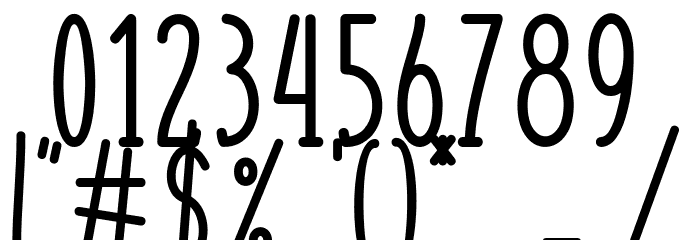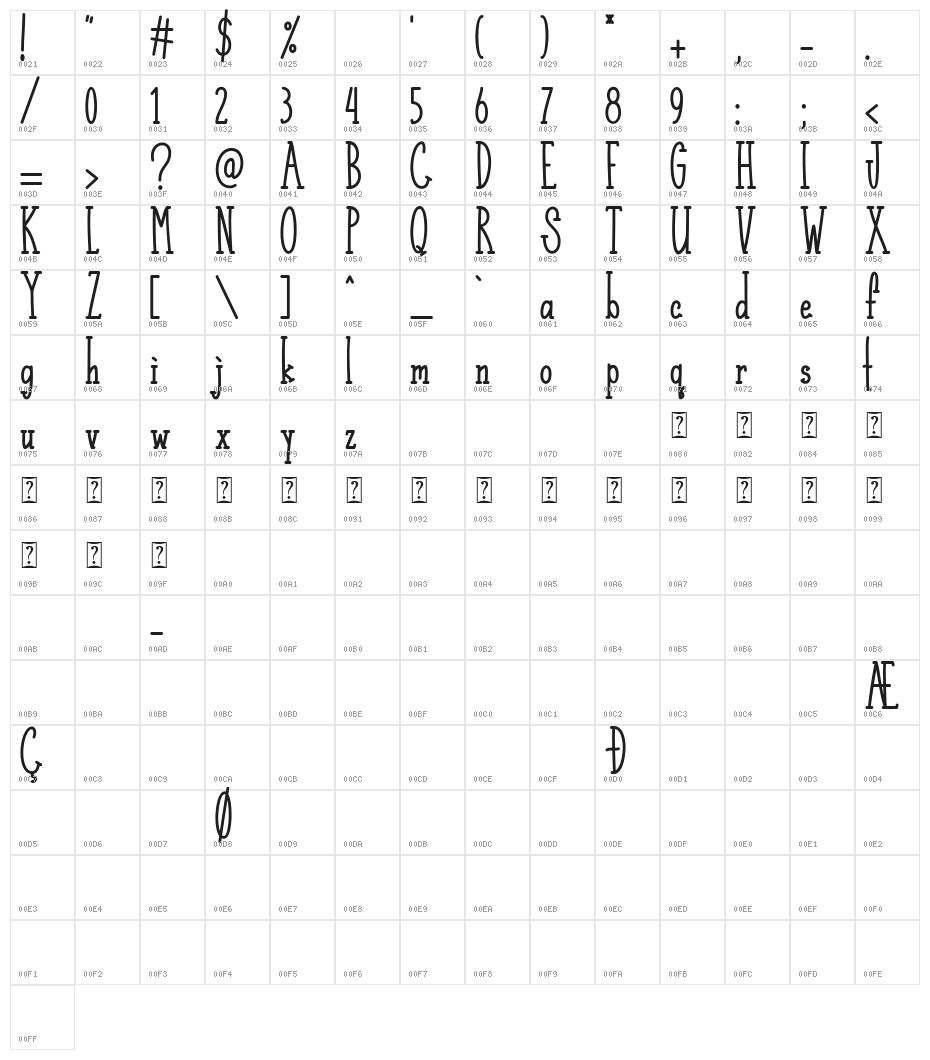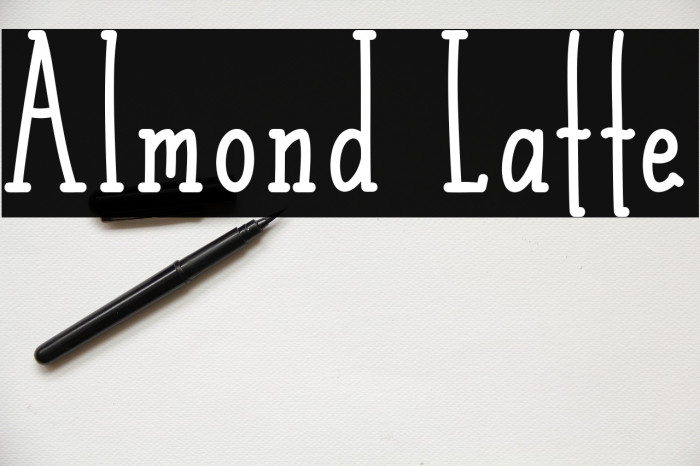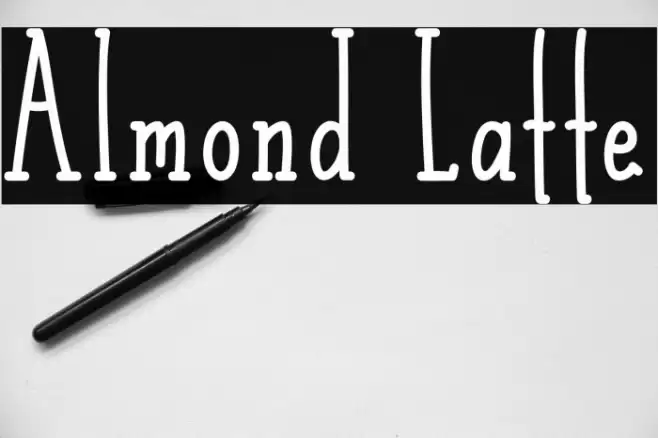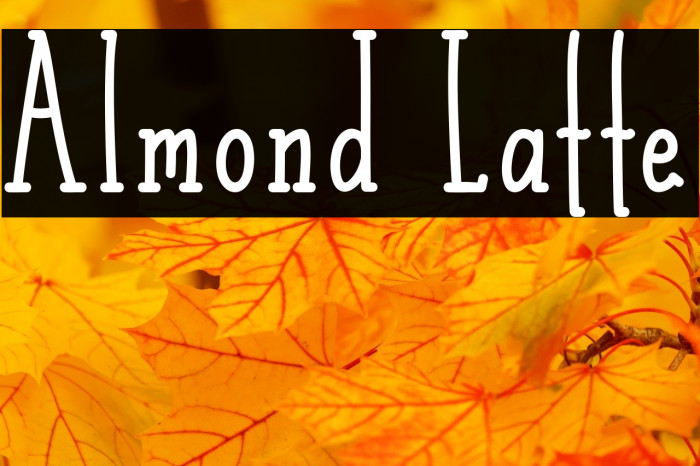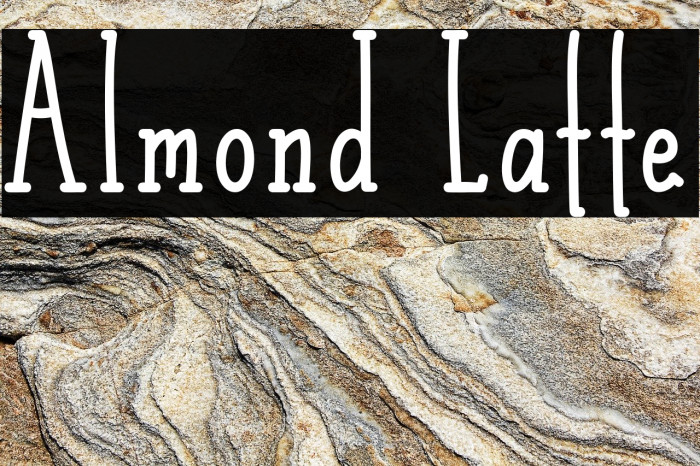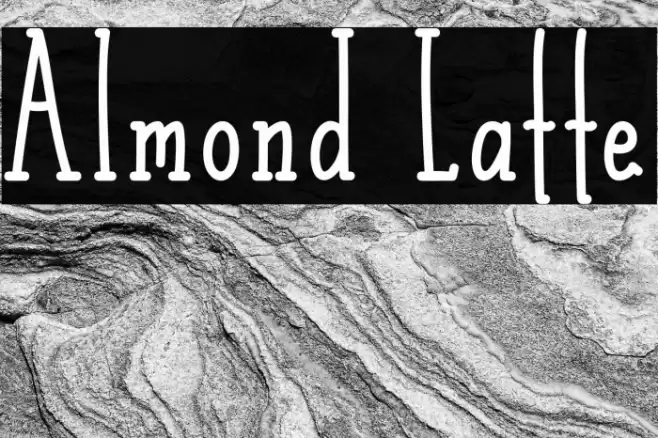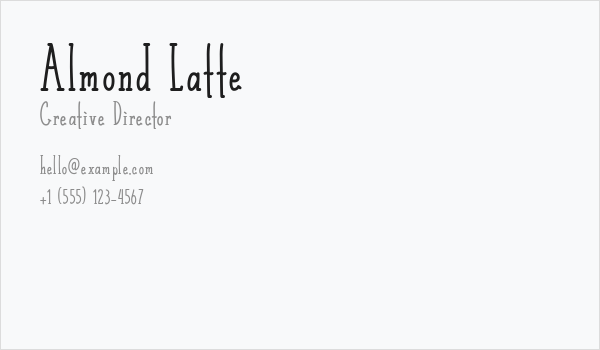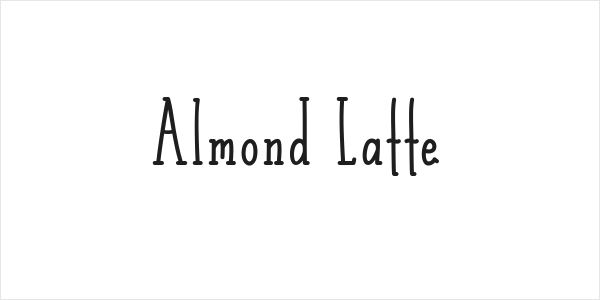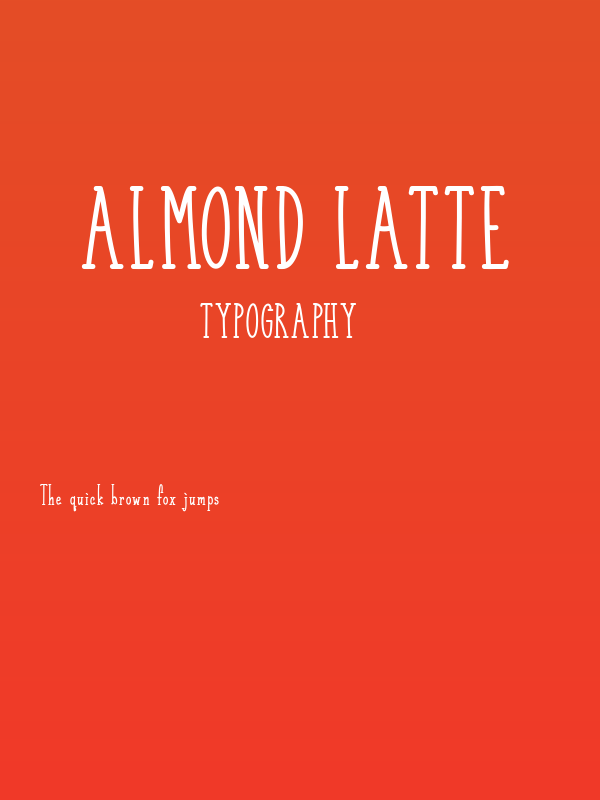
Almond Latte Font
Almond Latte Description
This font features a playful and whimsical design with tall, narrow characters that have a hand-drawn appearance. The uppercase letters are elongated with slightly curved strokes, giving them a unique and friendly look. The lowercase letters maintain this playful style, with some characters like 'g' and 'j' having distinctive loops and tails. The numbers are consistent with the overall style, featuring the same narrow and tall characteristics. Special characters are creatively designed, adding to the font's charm. The overall appearance is casual yet stylish, making it suitable for projects that require a touch of personality and creativity.
| Proposed Projects | Ideal for children's books, greeting cards, playful branding, and creative posters. |